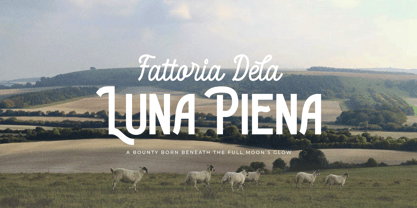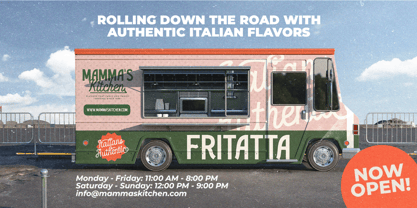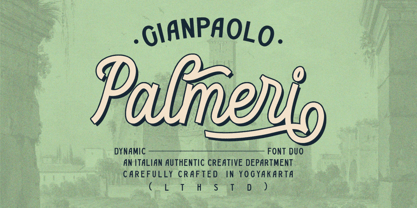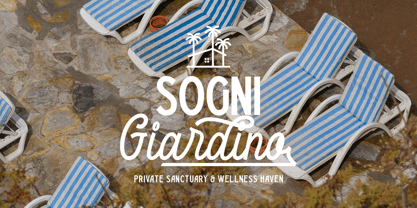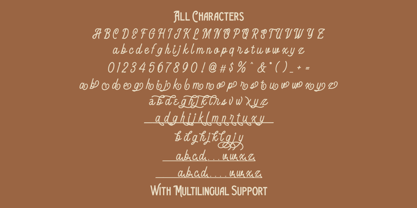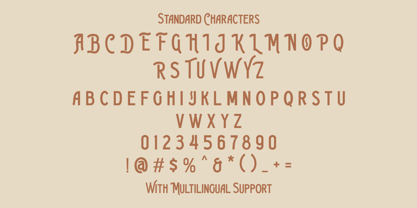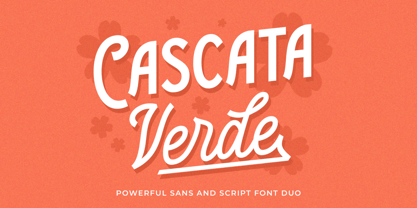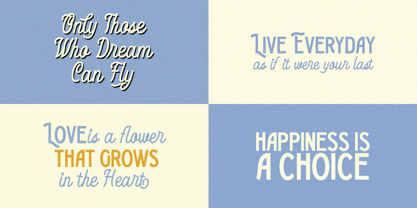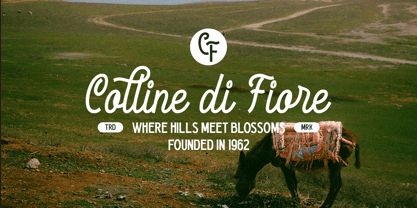
Gianpaolo Palmeri
by Letterhend
The Gianpaolo Palmeri Font Family was designed by Hendry Juanda and published by Letterhend. Gianpaolo Palmeri contains 2 styles and family package options. More about this family
Gianpaolo Palmeri is a dynamic and vintage-inspired font duo that combines bold, monoline script with strong, clean sans-serif lettering. Its smooth curves, stylish swashes, and subtle retro aesthetic make it perfect for branding, logos, packaging, posters, and editorial designs. Designed with a timeless Italian touch, this font exudes sophistication and authenticity, making it ideal for projects that need a blend of classic and modern appeal.
Features :
• Uppercase & lowercase
• Numbers and punctuation
• Alternates Character
• Multilingual support